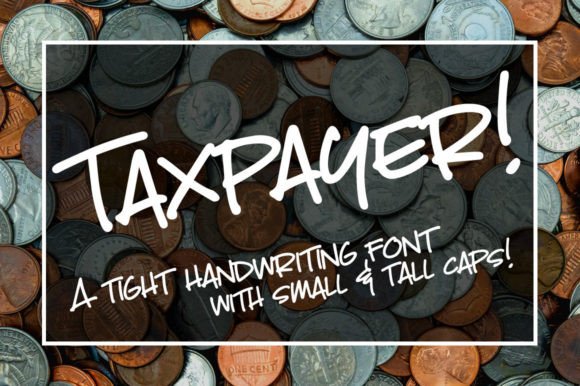
Dive into the world of Taxpayer Font, an exquisite script font family that captivates with its resemblance to genuine handwriting. Conjuring memories of handwritten letters and the charm of personalized notes, Taxpayer Font breathes life into your digital creations. GeekMissy, the creative visionary behind this font, has meticulously captured the essence of hand-addressed envelopes, transforming your designs with a touch of authenticity.
Paying taxes might not be the most exciting task, but with Taxpayer Font, you can turn the mundane into the extraordinary. Crafted with precision and care, this font mimics the artist's actual handwriting, featuring a captivating blend of tall "uppercase" and shorter "lowercase" characters. It's a unique and playful take on typography that adds a personal touch to your projects.
Step into the world of Taxpayer Font, where communication transcends the ordinary. With over 300 extended Latin characters, this font caters to a diverse range of languages, ensuring seamless integration in your global endeavors. Its versatility extends to both print and cutting machines, making it an indispensable tool for crafting personalized cards, eye-catching invitations, and intricate vinyl designs.
Elevate your designs with Taxpayer Font, a font that exudes warmth and familiarity. Its meticulously cleaned and smoothed characters dance gracefully across your screens, captivating your audience with their charm and legibility. Whether you're a seasoned designer or just starting your creative journey, Taxpayer Font is the perfect companion for adding a touch of handwritten charm to your projects.
Unleash your creativity with Taxpayer Font, a font that speaks volumes. Its carefully crafted double-letter ligatures in the lowercase set add an extra layer of realism, enhancing the illusion of genuine handwriting. Explore the possibilities of seamless letter combinations, adding depth and character to your designs.